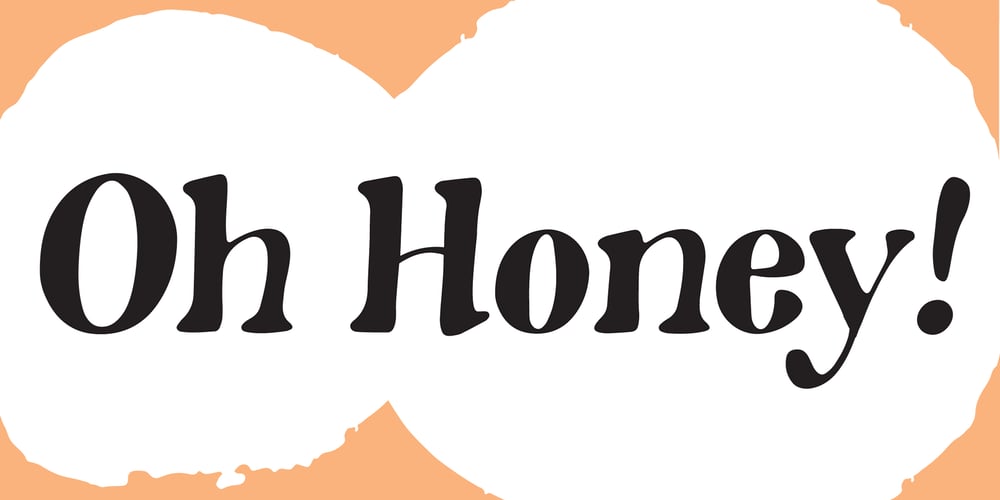
Oh Honey
Oh Honey font
Oh Honey Font Family was designed by Diana Kohne and published by Diana Kohne. Oh Honey contains 1 styles and family package options. Oh Honey is a handmade, feminine, new retro serif font made in 2021 by an artist who wanted to create an organic font to stand out in a world of rigid letterforms.Use Oh Honey for logos, headings, packaging, weddings, self help and fiction book covers and anywhere where you want to stand out with artsy sophistication.According to one font enthusiast, “This font is the typographic zeitgeist!”